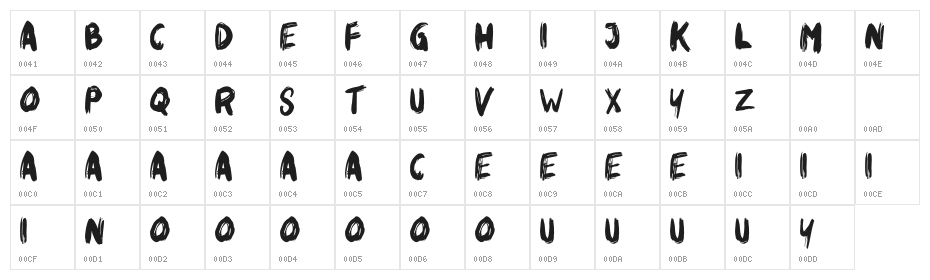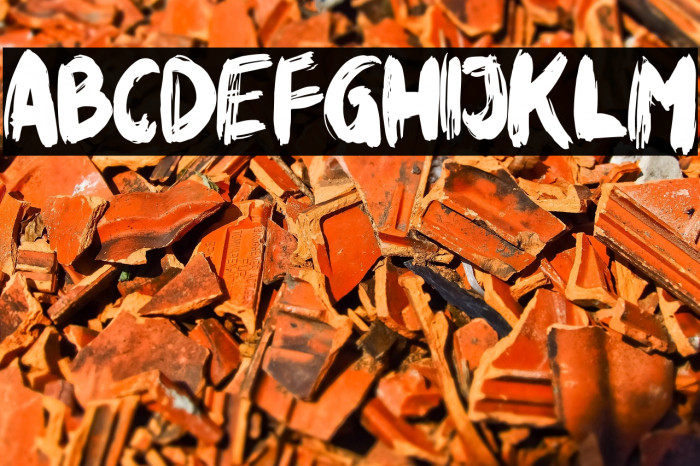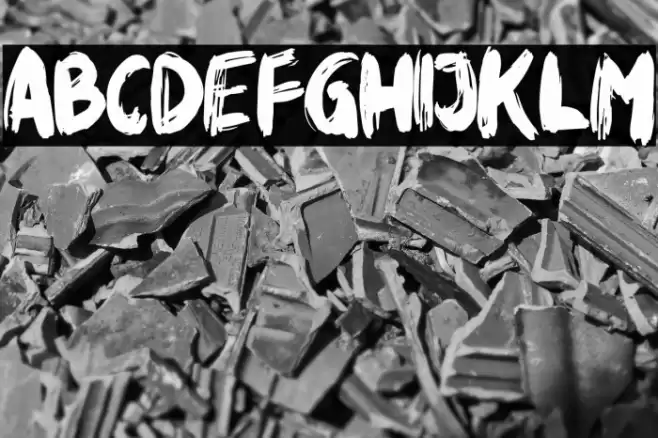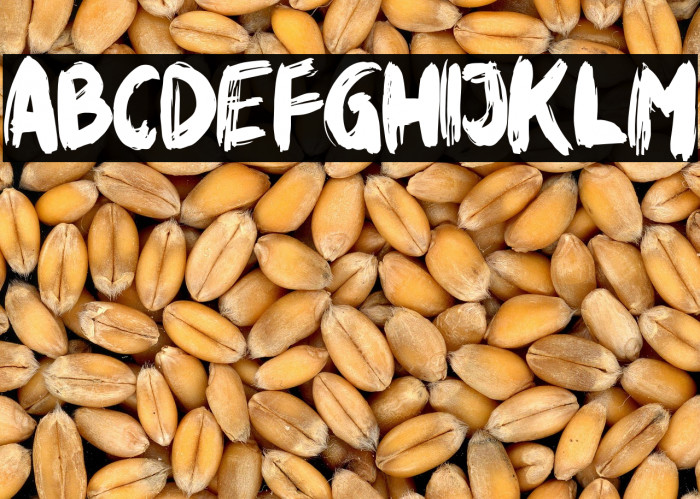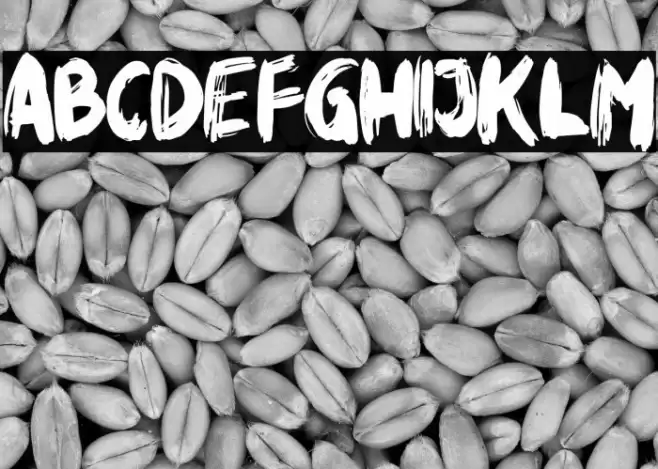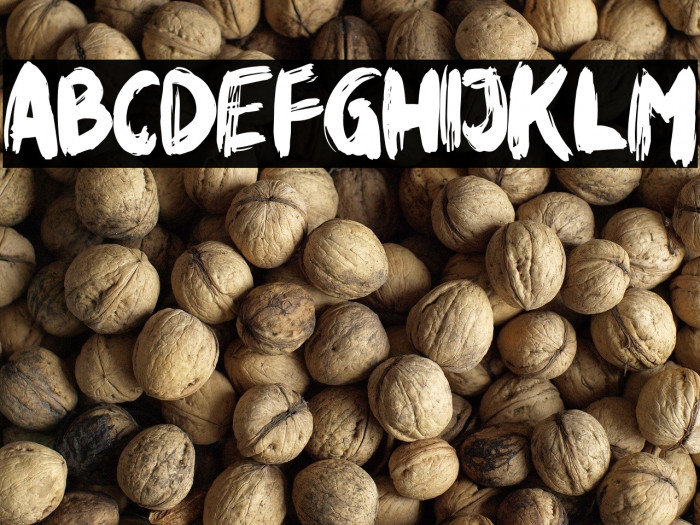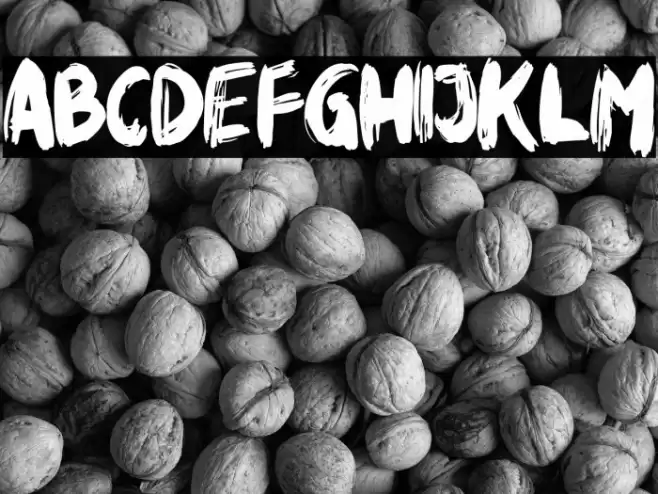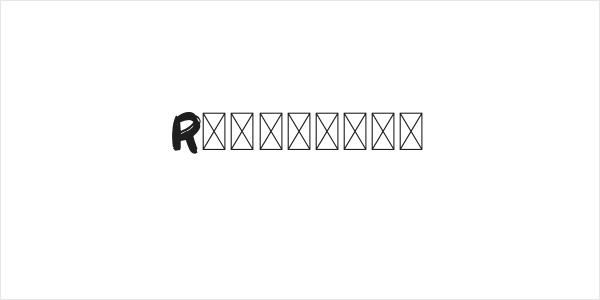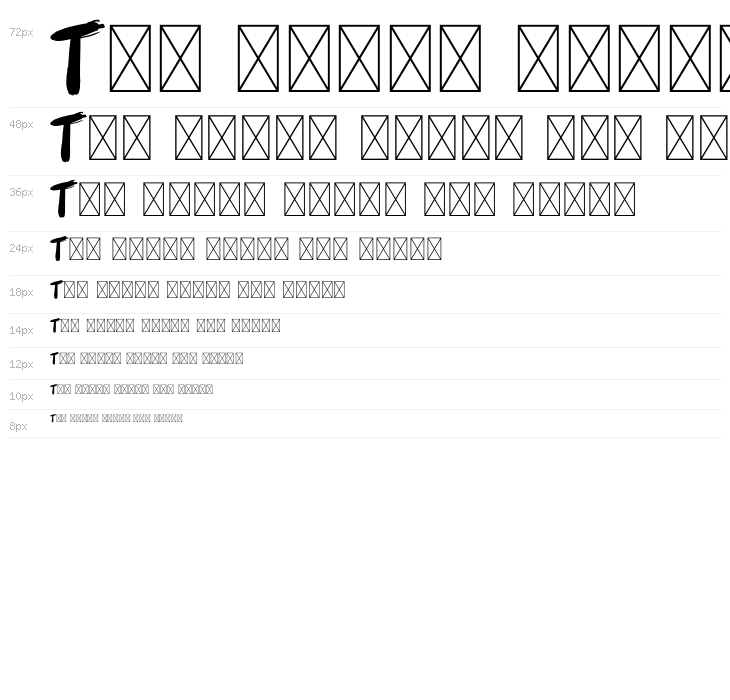
Rikabrush Font
Rikabrush Description
This font features a bold and expressive brush style, characterized by its dynamic and energetic strokes. The letters are crafted with a hand-painted appearance, giving them a raw and artistic feel. Each character exhibits a unique texture, with varying thickness and irregular edges that mimic the natural flow of brush strokes. The uppercase letters are particularly striking, with their bold presence and dramatic flair. This font is perfect for projects that require a creative and impactful visual statement.